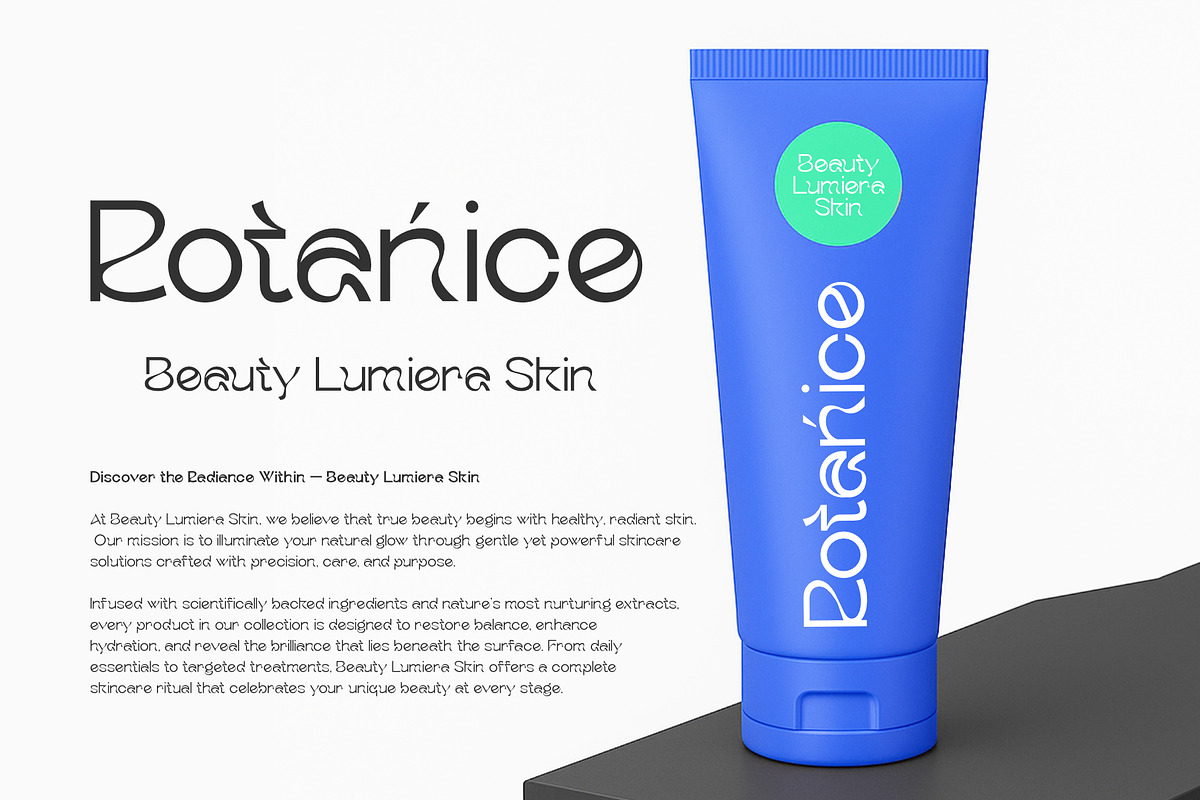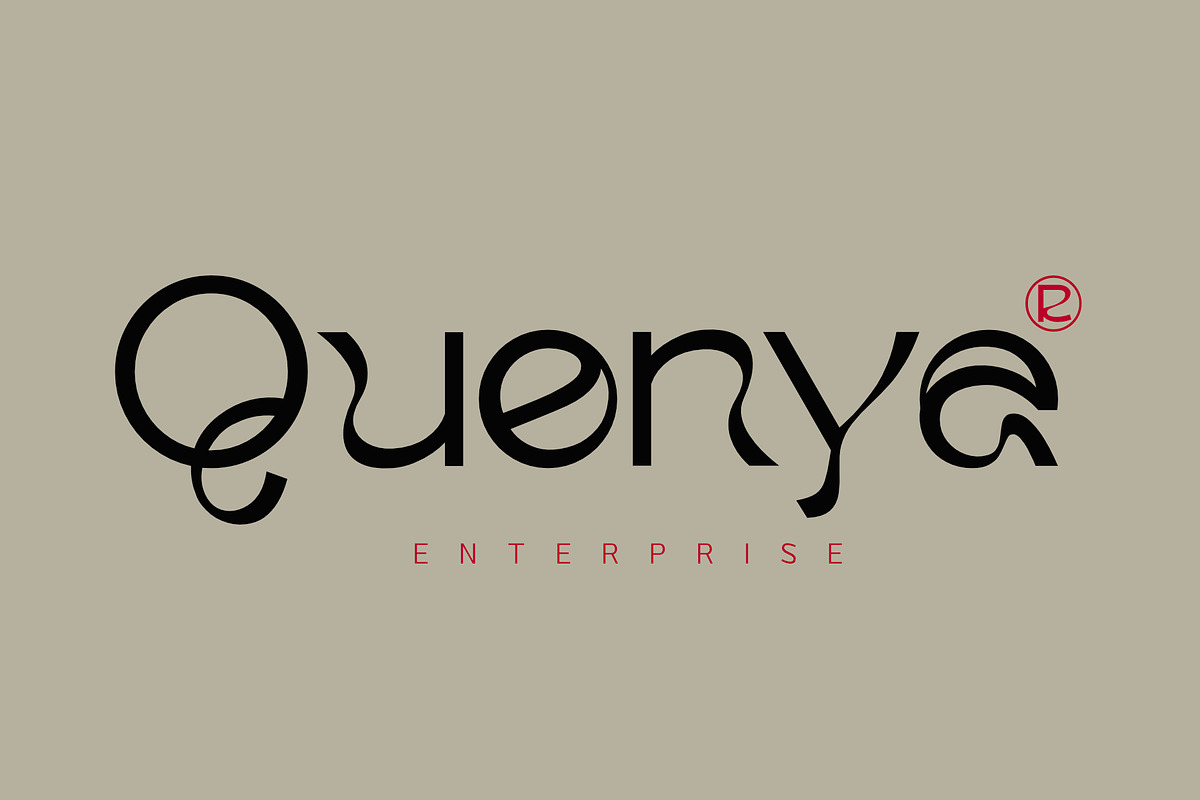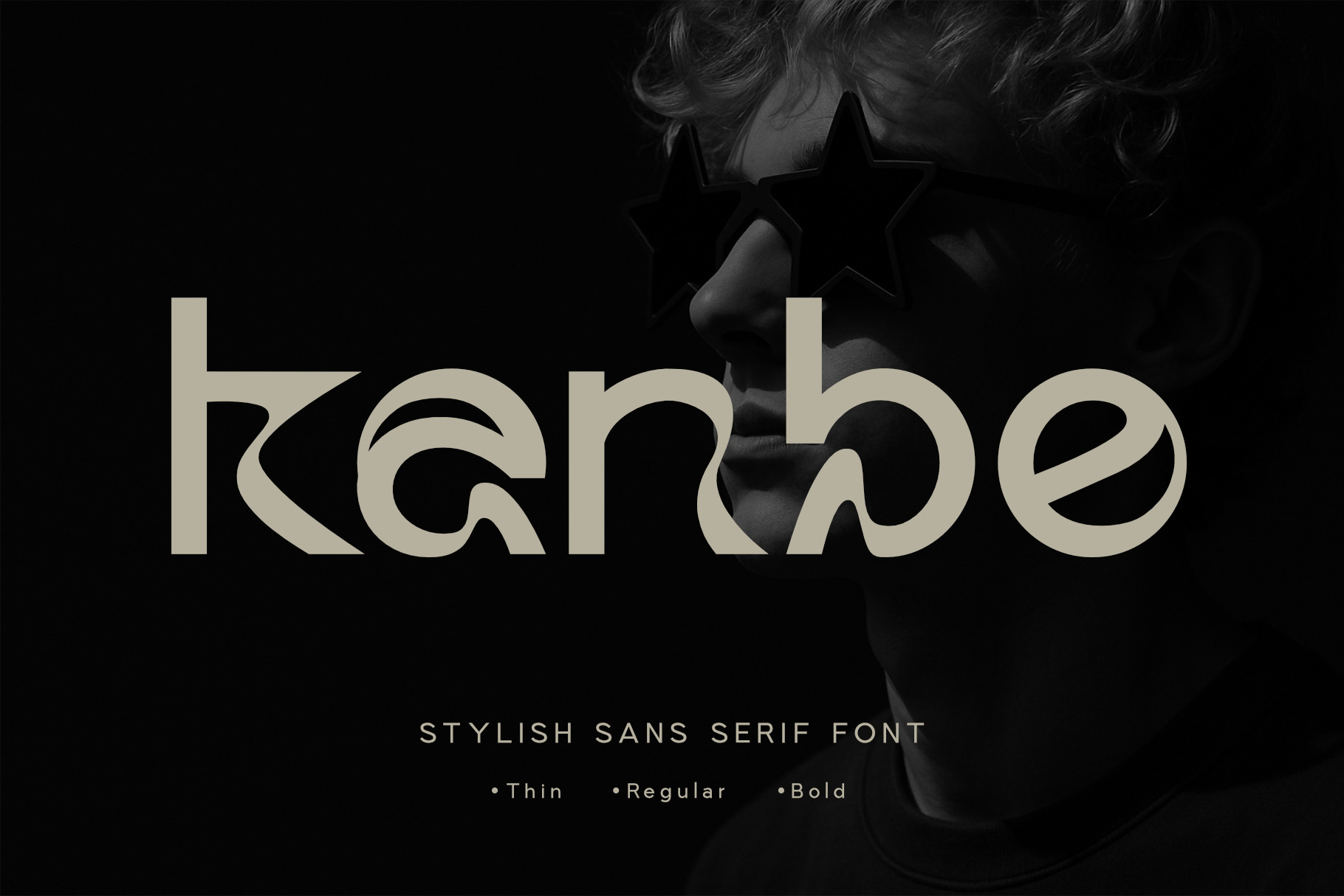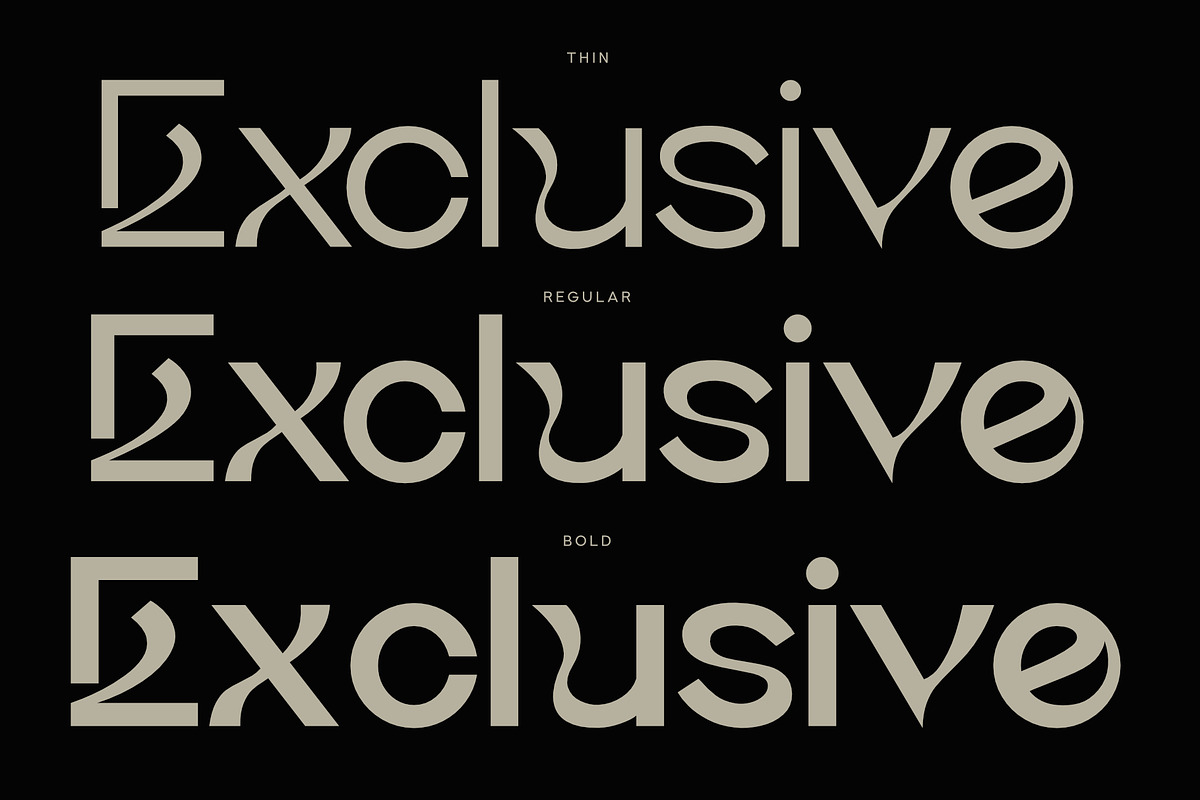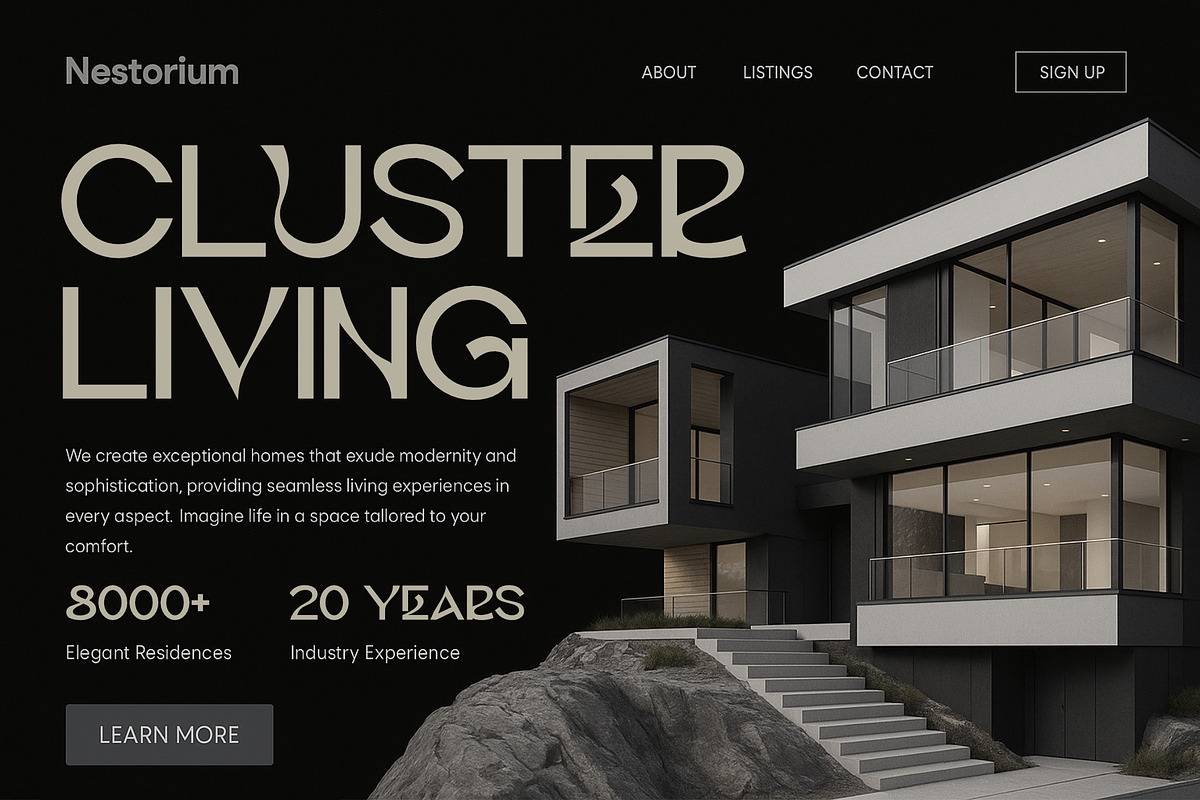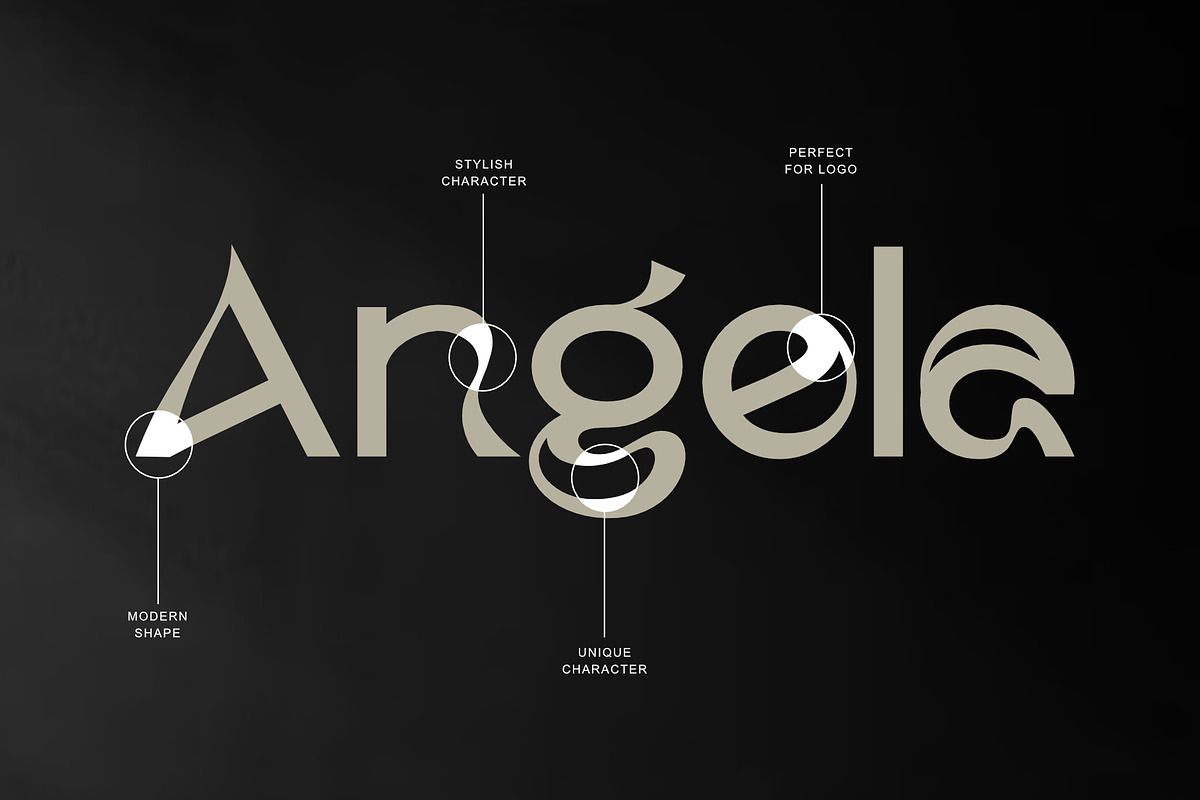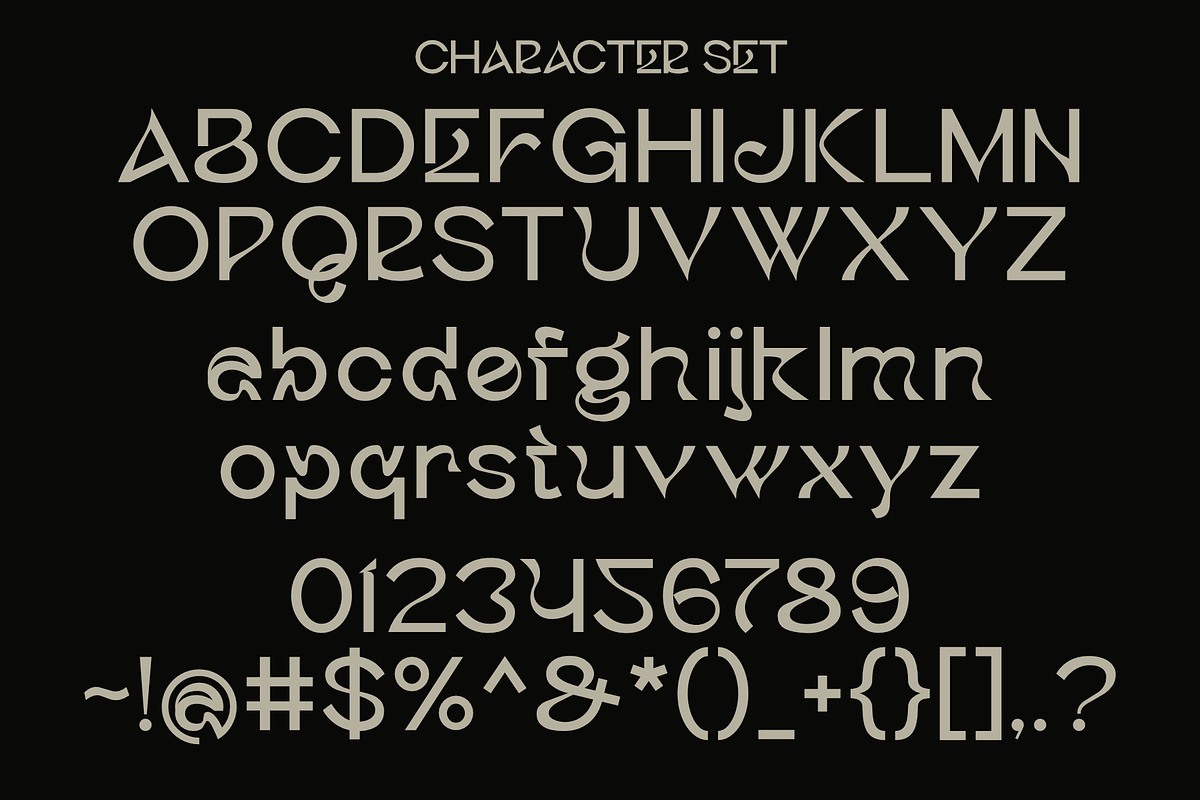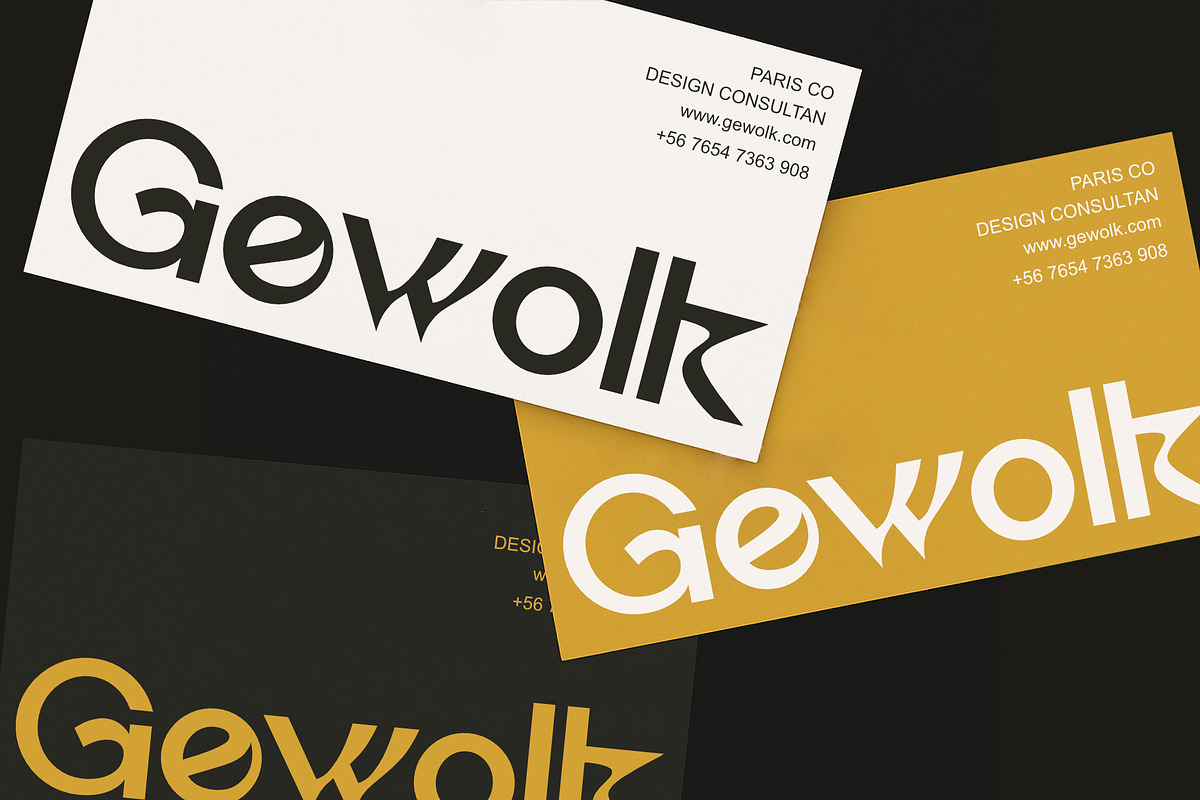
Kanbe - Stylish Sans Serif Font
Kanbe is a Stylish Sans Serif Font that blends minimalist elegance with clean and precision. Designed with balanced proportions and subtle detailing, it delivers a professional, modern, and dynamic impression—perfect for branding, editorial work, and digital design. Featuring multiple weights, OpenType features, Kanbe offers exceptional versatility while maintaining excellent readability, making it a great choice for projects that demand a sleek, bold, and refined look.